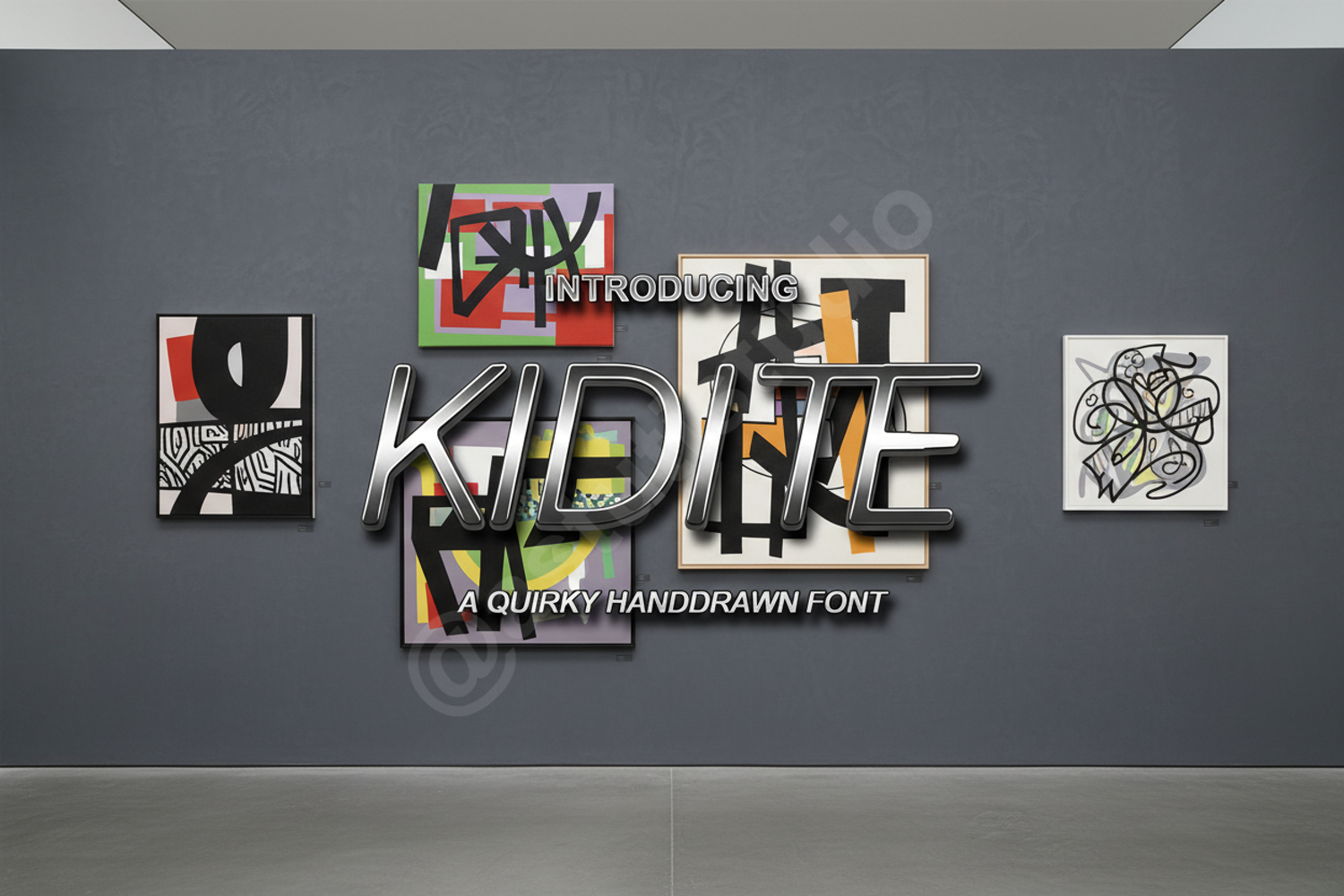
Kidite - Modern Playful Display Font
Kidite
Kidite is a premium display font meticulously crafted to bring a sense of joy and modern sophistication to your creative projects. With its clean lines and friendly curves, Kidite strikes the perfect balance between professional design and whimsical charm, making it a versatile addition to any designer's toolkit. Whether you are aiming for a high-end corporate look with a soft edge or a vibrant, youthful aesthetic, Kidite delivers exceptional legibility and style.
- Branding and Identity: Create memorable logos and brand marks with a distinct, friendly personality.
- Children's Media: Perfect for toy packaging, nursery decor, and educational book covers.
- Social Media Marketing: Enhance your Instagram, Pinterest, and TikTok graphics with engaging typography.
- Print Design: Ideal for greeting cards, invitations, posters, and stationery.
- Product Packaging: Elevate your labels and boxes with a clean, modern display aesthetic.